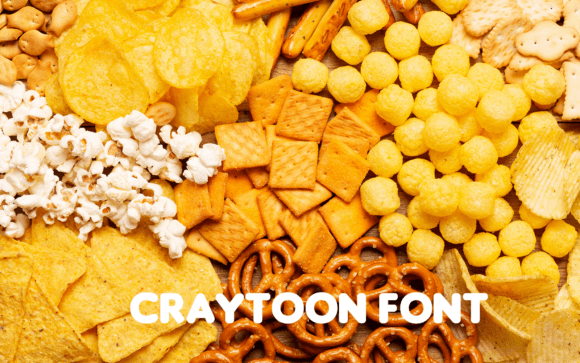
Craytoon Font: The Ultimate Pick for Playful Designs
Are you tired of using the same old fonts for your designs? Do you want to add a touch of playfulness and whimsy to your projects? Look no further than Craytoon Font! This fun and quirky font is perfect for designers and crafters who want to create eye-catching and engaging designs that stand out from the crowd.
What is Craytoon Font?
Craytoon Font is a unique and innovative font that is designed to bring a sense of fun and playfulness to your designs. With its bold and colorful aesthetic, Craytoon Font is perfect for projects that require a touch of whimsy and humor. Whether you’re designing for a kid’s cereal, an animated video, or a punchy social media graphic, Craytoon Font makes your message impossible to ignore.
Key Features of Craytoon Font
- Bold and Colorful: Craytoon Font features bold and colorful lettering that is sure to grab attention.
- Playful Aesthetic: The font has a playful and whimsical aesthetic that is perfect for designs that require a touch of humor and fun.
- Versatile: Craytoon Font can be used for a wide range of projects, from comics and cartoons to packaging and social media graphics.
- Easy to Read: Despite its bold and playful aesthetic, Craytoon Font is easy to read and understand, making it perfect for designs that require a clear message.
Use Cases for Craytoon Font
Craytoon Font is perfect for a wide range of design projects, including:
- Comics and Cartoons: Craytoon Font is a natural fit for comics and cartoons, adding a touch of playfulness and humor to your characters and storylines.
- Packaging: Craytoon Font can be used to create eye-catching and engaging packaging for products, especially those aimed at children.
- Social Media Graphics: Craytoon Font is perfect for social media graphics, adding a touch of whimsy and humor to your posts and stories.
- Animated Videos: Craytoon Font can be used to create engaging and fun animated videos that capture the attention of your audience.
Benefits of Using Craytoon Font
Using Craytoon Font in your designs offers a range of benefits, including:
- Increased Engagement: Craytoon Font is designed to grab attention and engage your audience, making it perfect for designs that require a high level of engagement.
- Improved Brand Recognition: Craytoon Font can help to improve brand recognition, especially for brands that want to convey a sense of fun and playfulness.
- Unique Aesthetic: Craytoon Font offers a unique and innovative aesthetic that sets it apart from other fonts, making it perfect for designers who want to create something truly unique.
- Experiment with Colors: Craytoon Font is designed to be colorful, so don’t be afraid to experiment with different colors and combinations.
- Play with Size: Craytoon Font can be used at a range of sizes, from small and subtle to large and bold.
- Combine with Other Fonts: Craytoon Font can be combined with other fonts to create a unique and interesting aesthetic.
Craytoon Font is the ultimate pick for designers and crafters who want to add a touch of playfulness and whimsy to their designs. With its bold and colorful aesthetic, Craytoon Font is perfect for projects that require a high level of engagement and attention. Whether you’re designing for a kid’s cereal, an animated video, or a punchy social media graphic, Craytoon Font makes your message impossible to ignore. So why not give it a try and see the difference it can make in your designs?